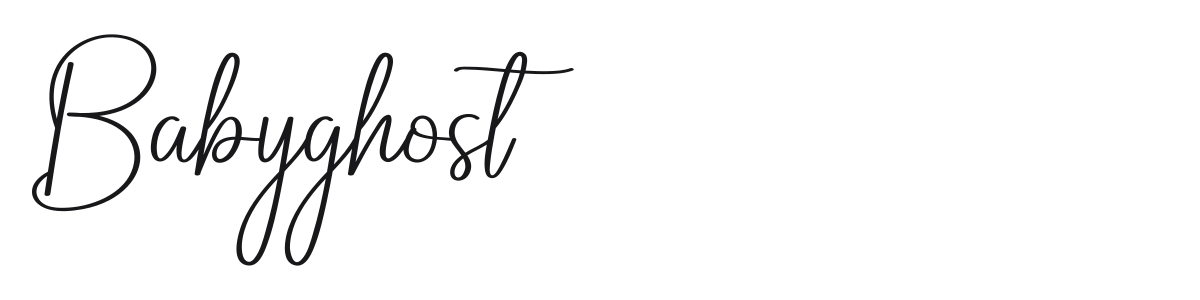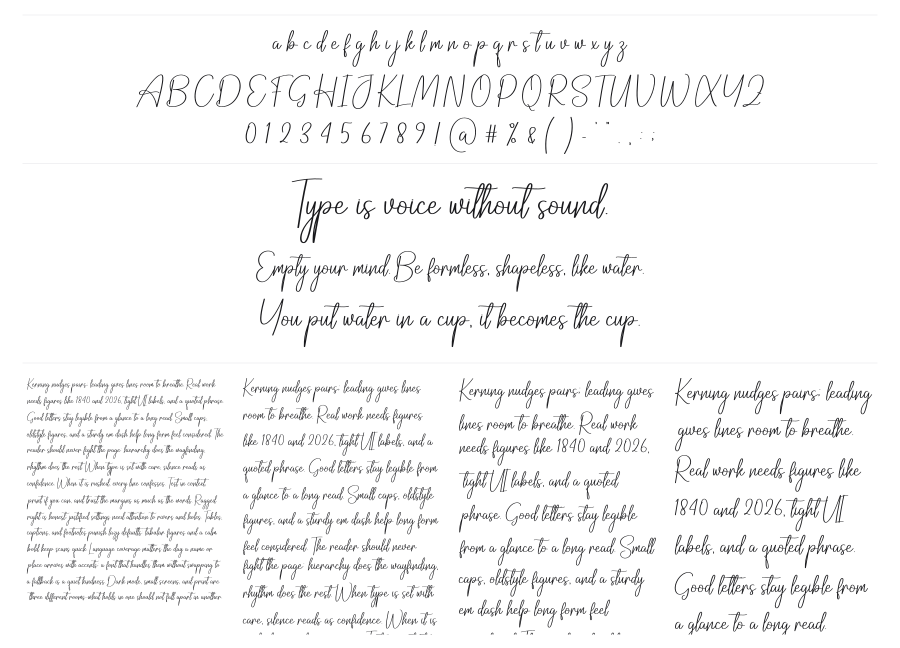
Babyghost
Babyghost is a light, flowing casual script with looping ascenders and a relaxed connected rhythm that reads as effortlessly handwritten. The near-monoweight strokes stay delicate across the alphabet, keeping the overall feel airy and romantic. It suits wedding stationery, lifestyle branding, and social media graphics where a personal touch matters.